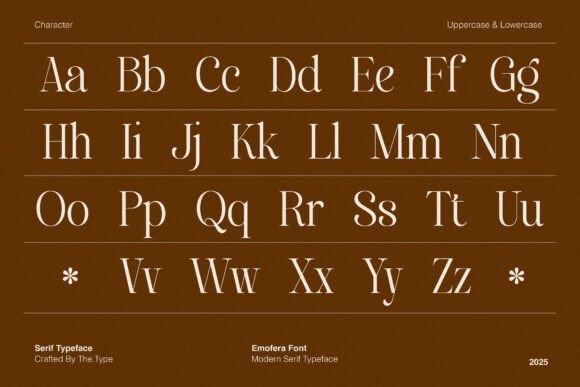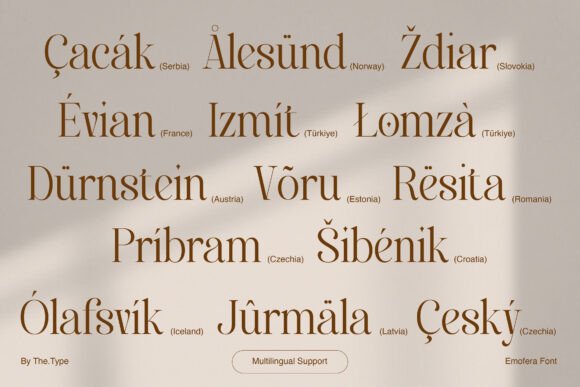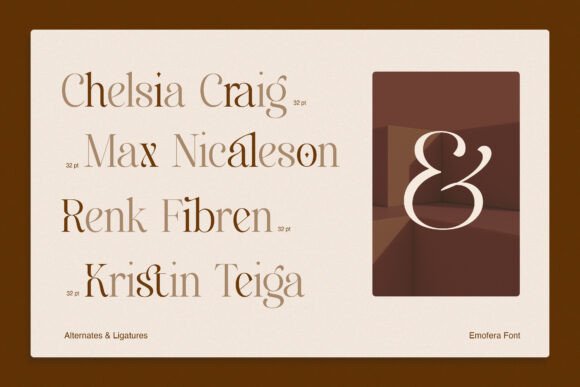
Introduction to Emofera Font Font
Fonts play a crucial role in design, and the Emofera Font font is a typeface that brings both character and versatility to any project. Whether you’re working on a branding project, a website, or a print design, the Emofera Font font offers a unique style that can elevate your work.
Emofera – a modern serif font inspired by the Beauty line.
This font can look more classic (conservative) display serif with stylish alternate, which is perfect for texts So same he can be more expressive, playing and more modern with alternative substitutes and ligatures, try to play with them and you will get the uniqueness in your project.
Key Features of Emofera Font Font
Why Choose Emofera Font Font?
The Emofera Font font is more than just a typeface – it’s a design tool that helps you communicate your message with style and clarity. Its unique character set and versatile design make it suitable for a wide range of applications, from elegant invitations to bold headlines.
With its carefully crafted letterforms and balanced proportions, the Emofera Font font ensures readability and visual appeal across all mediums.
What makes Emofera Font font special?
The Emofera Font font stands out with its unique design, exceptional readability, and versatility across various design applications.